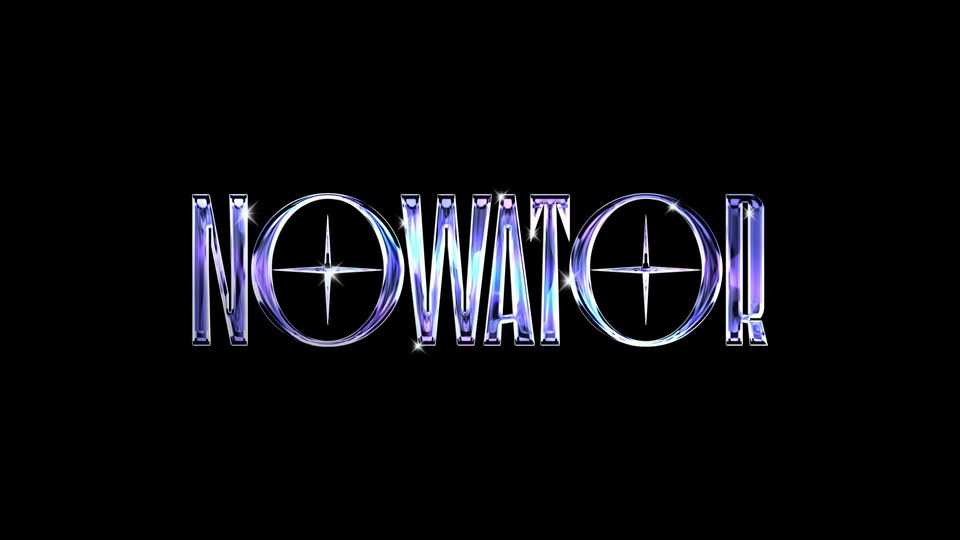
Download Nowator font, a unique display typeface with contrasting strokes and sharp geometric proportions. Nowator is perfect for headlines, posters, brand identities and logos, editorial use.